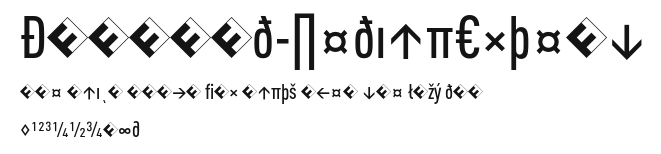
• Font Name: DINCond-MediumExpert
• Full Font Name: DINCond-MediumExpert
• PostScript Name: DINCond-MediumExpert
• Copyright: 2000 Albert-Jan Pool, published by Fontshop International for the FontFont library.
About DINCond-MediumExpert.otf
DINCond-MediumExpert.otf is a modern, elegant sans-serif font designed for ultimate readability and visual harmony. Perfect for branding, headlines, web design, and print materials.